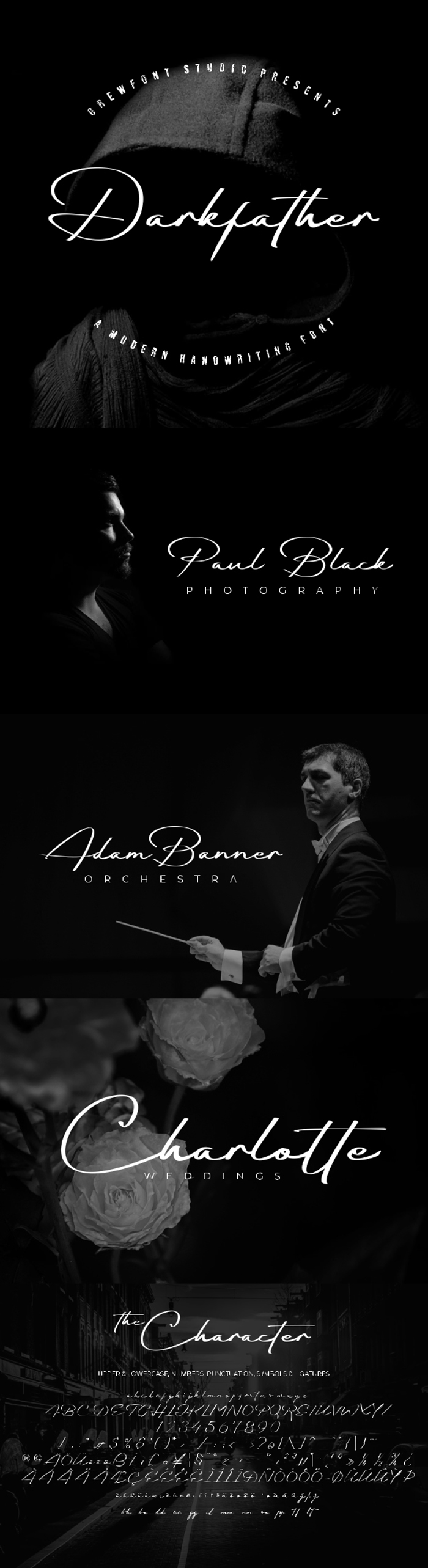
Darkfather Font
Darkfather is inspired by classic typography and brings its own unique style to any design project. This fantastic handwritten font is best suited for headlines of all sizes. This is a font that I hope is perfect for you to make as your brand signature, logotype. wordmark, branding, and various other design needs that require a touch of natural handwriting.